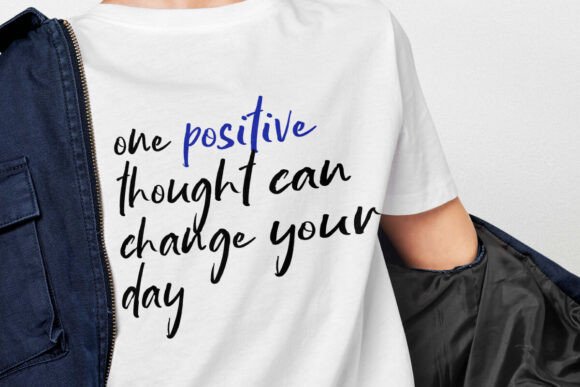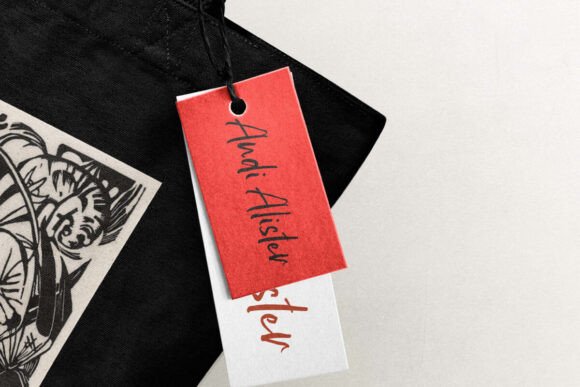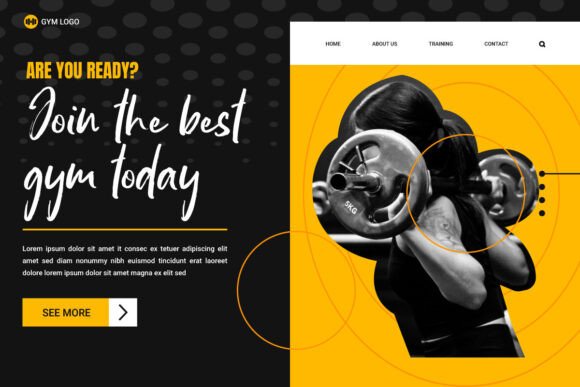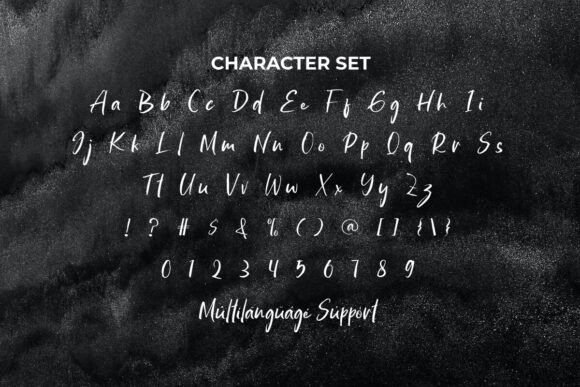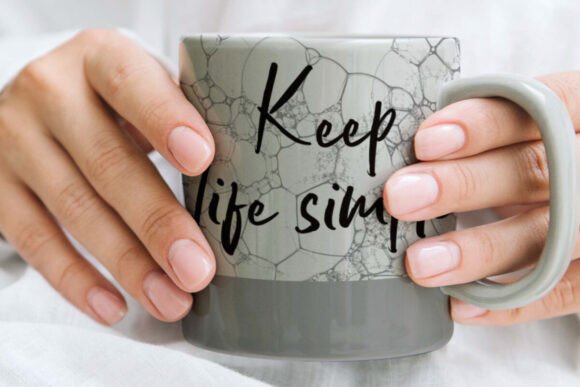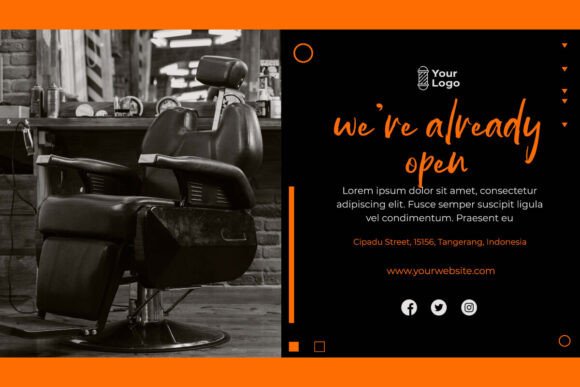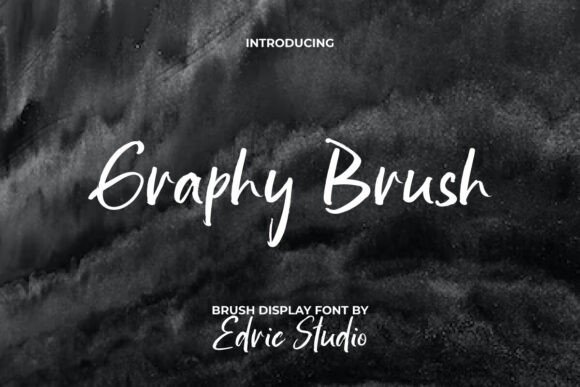
Introducing Graphy Brush Font: Elevate Your Designs with a Stylish Brush Script
In the world of design, fonts play a pivotal role in conveying messages, expressing creativity, and capturing the essence of a brand. For designers and crafters looking to add a touch of elegance and charm to their projects, Graphy Brush Font emerges as an exceptional choice. This stylish brush script font is not just a typeface but a tool that can transform your designs, making them interesting and cool. Whether you’re working on a project for accessories, authors, barbershops, cafes, clothing brands, handicrafts, music, photography, printing, publishing, sports, or any other industry, Graphy Brush Font is versatile enough to suit your needs.
The Charm of Graphy Brush Font
Graphy Brush Font boasts characters that are uniquely charming. Each letter is crafted with precision, mimicking the fluidity and expressiveness of brush strokes. This font doesn’t just convey a message; it tells a story, evoking emotions and adding a personal touch to your designs. The beauty of Graphy Brush Font lies in its ability to blend sophistication with a casual, laid-back vibe, making it perfect for a wide range of applications.
Versatility Across Industries
One of the standout features of Graphy Brush Font is its versatility. It’s not limited to a specific industry or use case. Here are some examples of how this font can be applied across various sectors:
- Accessories: Add a stylish touch to your product labels, packaging, or marketing materials.
- Author/Publishing: Enhance the covers of books, e-books, or author websites with a sophisticated yet approachable feel.
- Barbershop/Cafe: Create a welcoming atmosphere with signage, menus, or promotional materials that exude warmth and personality.
- Clothing Brand: Elevate your brand’s visual identity with stylish logos, tags, or advertisements.
- Handicrafts: Showcase your handmade products with labels or packaging that reflect a personal, artisanal touch.
- Music/Photography: Use Graphy Brush Font for album covers, photography portfolios, or event promotions to add a creative flair.
- Printing/Publishing: Apply this font to magazine headers, newspaper titles, or any printed material for a distinctive look.
- Sport: Even in the sports industry, Graphy Brush Font can be used for team logos, event posters, or motivational quotes to give a modern and dynamic feel.
Why Choose Graphy Brush Font?
Choosing Graphy Brush Font for your design projects comes with several benefits:
- Unique Aesthetic: Stand out from the crowd with a font that offers a fresh and stylish look.
- High Readability: Despite its artistic nature, Graphy Brush Font maintains a high level of readability, making it suitable for both headings and body text.
- Customizability: The font’s brush script nature allows for creative freedom, enabling you to experiment with different colors, textures, and effects.
- Time-Saving: With Graphy Brush Font, you can achieve professional-looking results without spending hours on custom typography.
How to Use Graphy Brush Font Effectively
To maximize the potential of Graphy Brush Font, consider the following tips:
- Pair it Wisely: Combine Graphy Brush Font with simpler fonts for body text to create visual hierarchy and balance.
- Play with Colors: Take advantage of the font’s versatility by experimenting with various colors and gradients.
- Adjust Letter Spacing: Fine-tune the letter spacing to ensure optimal readability and aesthetic appeal.
- Emphasize Key Elements: Use size, color, and placement to draw attention to specific parts of your design.
Graphy Brush Font is more than just a typeface; it’s a design companion that can elevate your projects to new heights. Its unique blend of style, versatility, and charm makes it an invaluable asset for designers and crafters across various industries. By incorporating Graphy Brush Font into your design toolkit, you’re not just choosing a font; you’re embracing a creative philosophy that values beauty, expressiveness, and connection. So, go ahead and let Graphy Brush Font be the brush that paints your next design masterpiece.